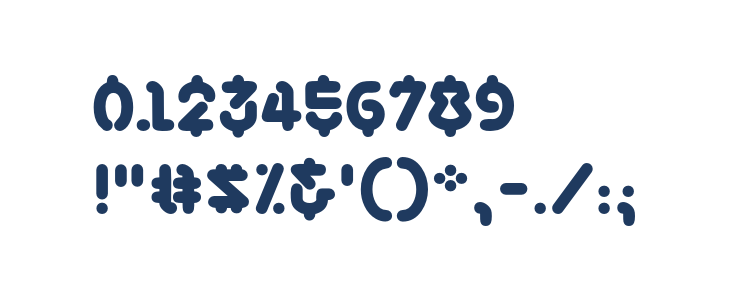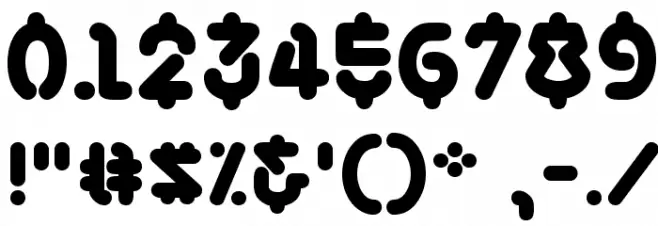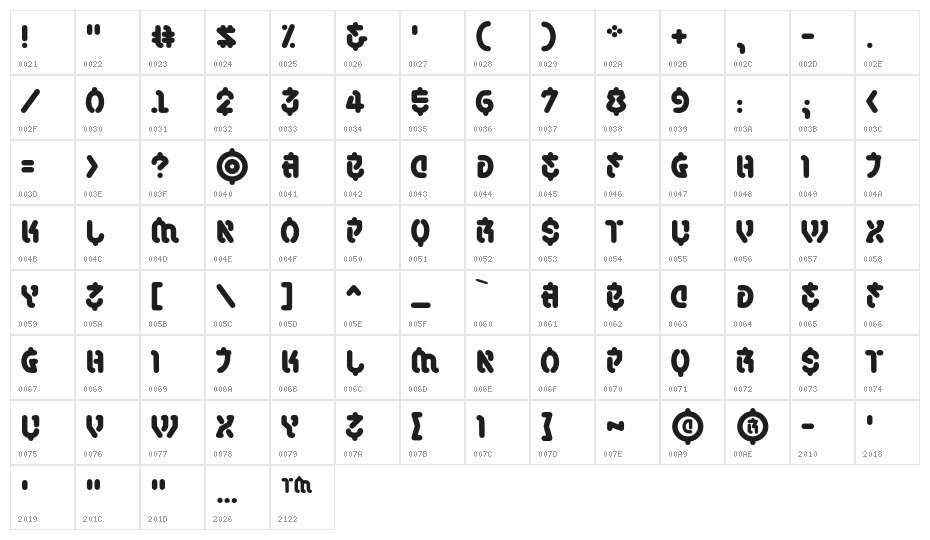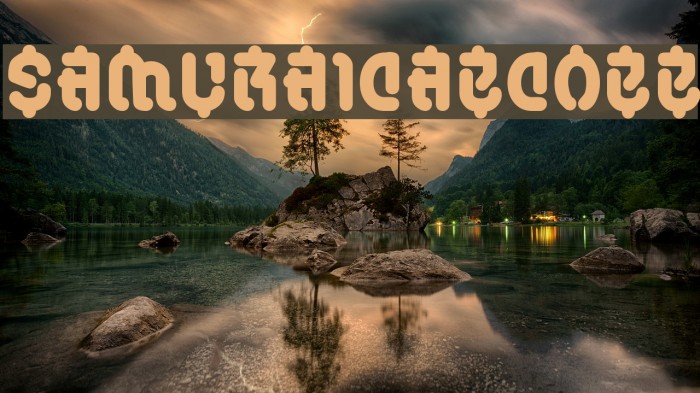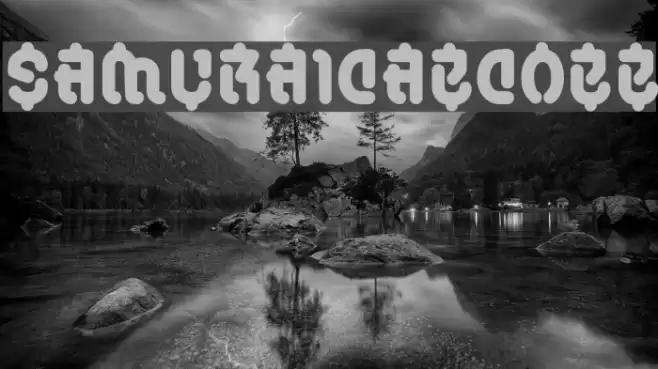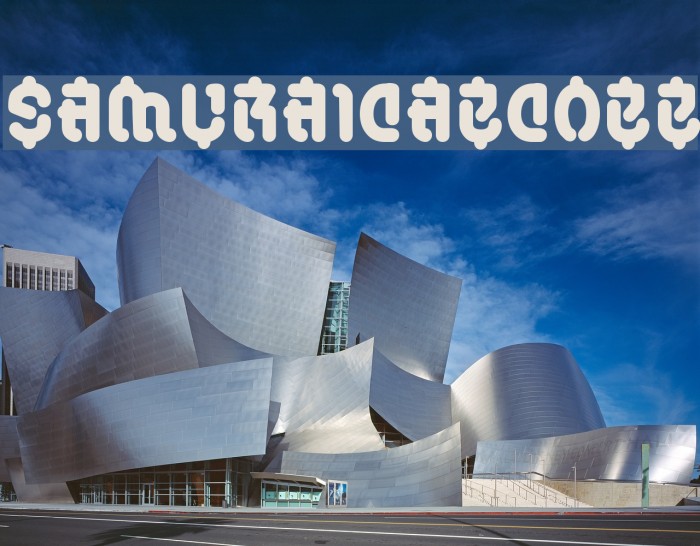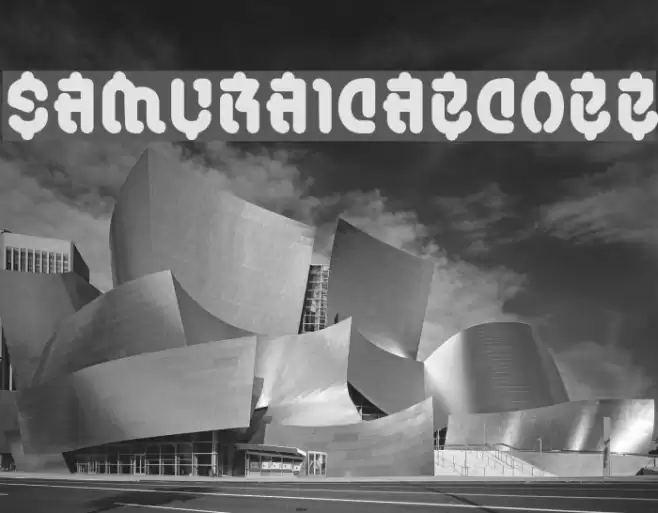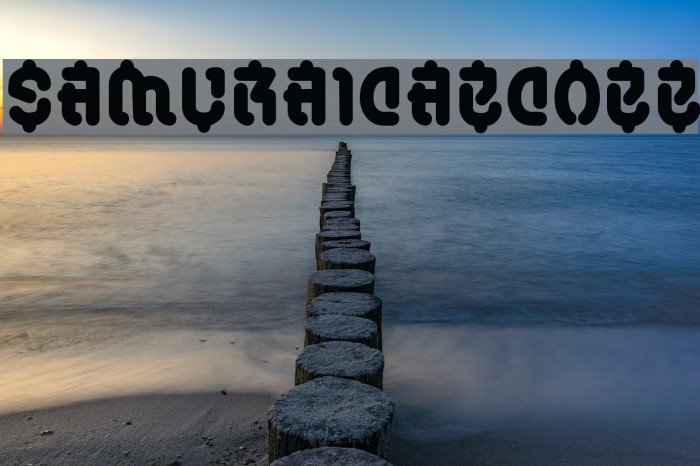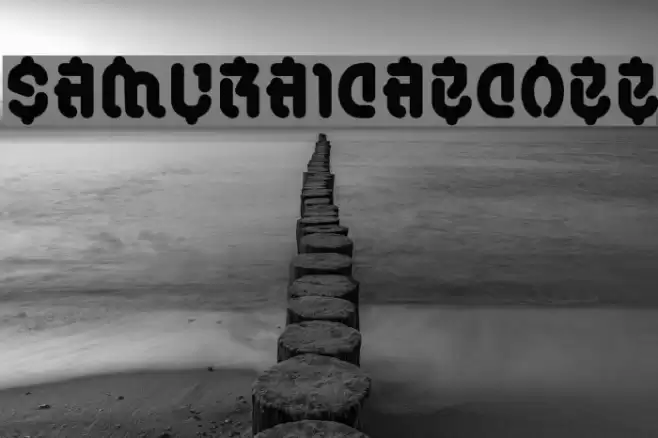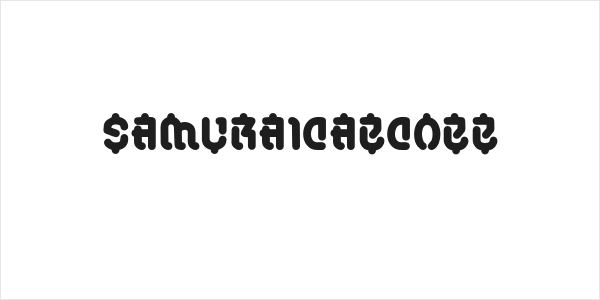
SamuraiCabCoBB Font
SamuraiCabCoBB Description
This font exhibits a bold and playful style with a distinctive rounded and bulbous appearance. Each character is crafted with thick strokes and unique shapes, creating a sense of whimsy and creativity. The letters are highly stylized, with a consistent weight throughout, making them stand out prominently. The numbers and special characters follow the same design principles, ensuring a cohesive look across all elements. This font's unique design makes it ideal for projects that require a fun and eye-catching aesthetic.
| Overall Style | Playful, Whimsical, Creative |
| Use Case | Logos, Posters, Headlines |
| Proposed Projects | Ideal for children's books, playful branding, posters, and creative advertising campaigns. |